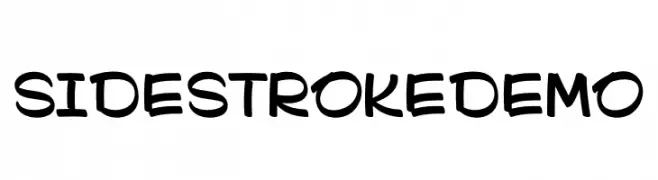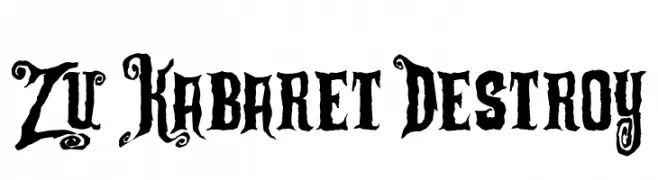
A delicate handwritten font with thin, flowing lines and elegant curves.
A playful, bold font with a hand-drawn, casual style.
A bold, distressed font with a rugged, hand-drawn texture.
A sophisticated script font with smooth, flowing lines and graceful curves.
A cursive, handwritten font with elegant, flowing strokes and dynamic contrast.
A bold, brush-style font with dynamic, artistic strokes.
A bold, handwritten script font with a lively and dynamic style.
A bold, distressed font with a grunge texture and rugged appearance.
A tall, narrow, and modern font with high contrast and elegant style.
A decorative, theatrical font with vintage cabaret flair.